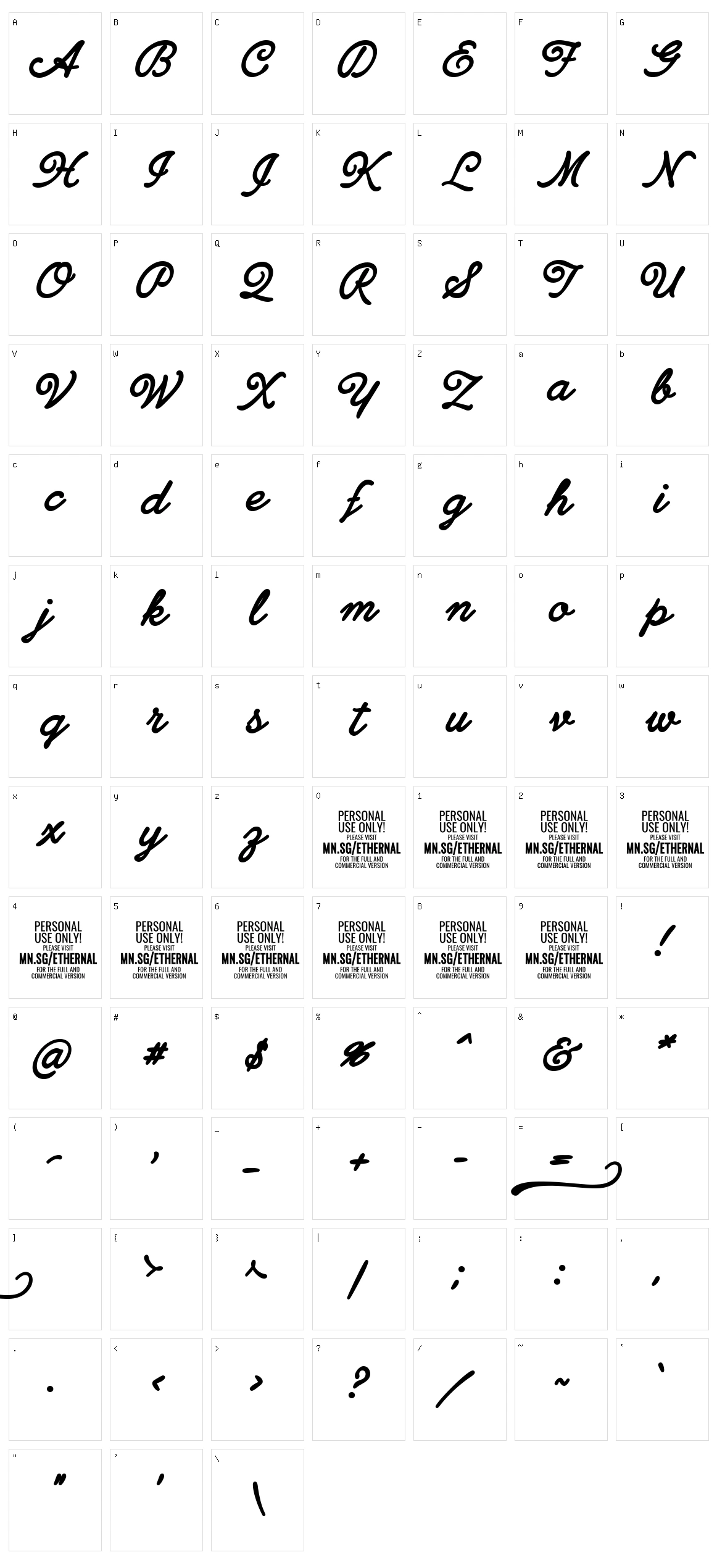
Ethernal is a two-version script typeface.
It has a beautiful flow, perfected curves and a classic style.
Created by Måns Grebäck, this decorative typeface also has a lot of
contextual alternates, as well as stylistic alternates and ligatures,
to make it as flexible as possible.
The fonts supports a very wide range of languages.
Use ( ) [ ] { } after a word for different endings.